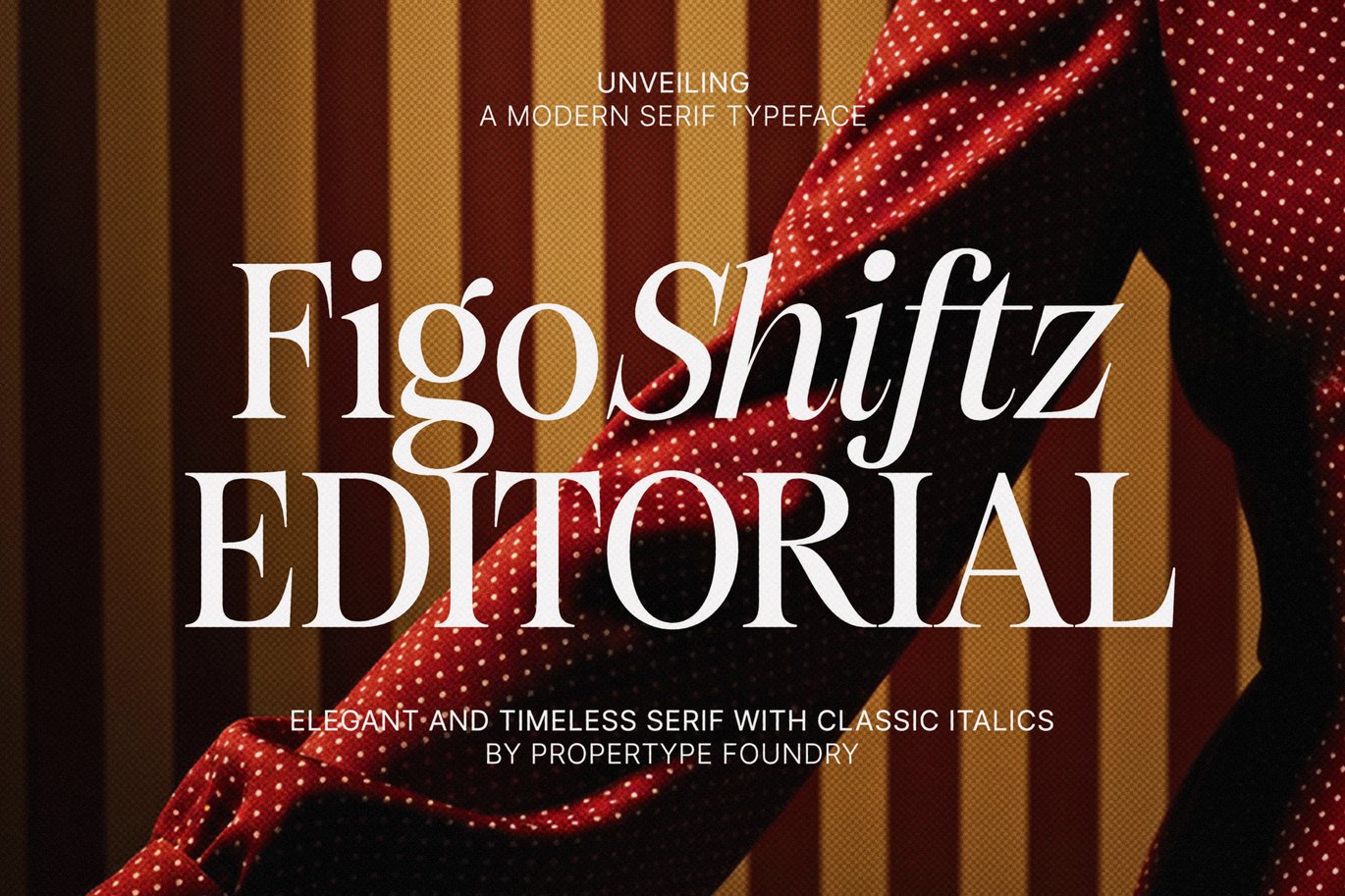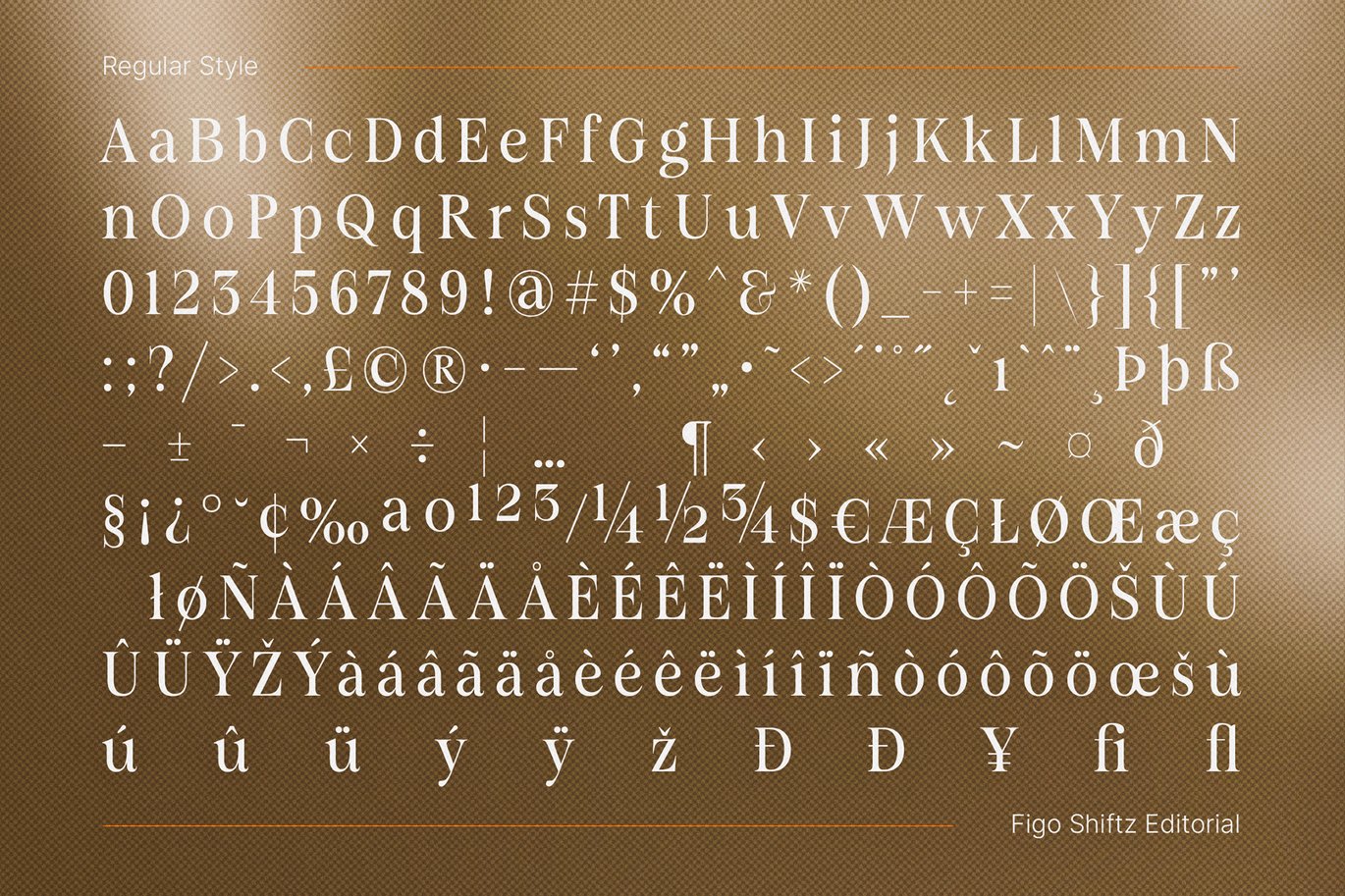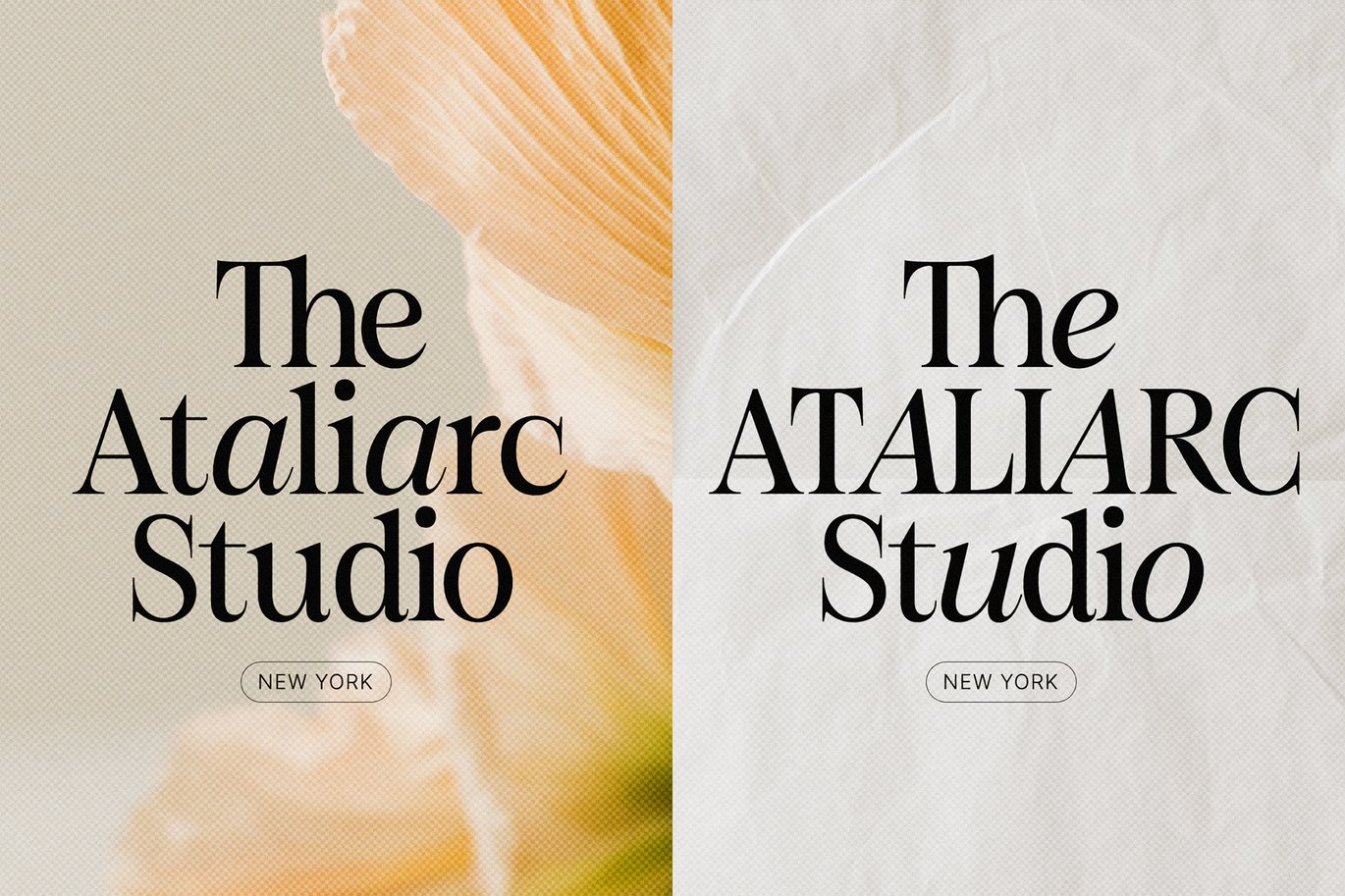
Figo Shiftz – Editorial Serif Font
Propertype built Figo Shiftz Editorial for magazine work. The roman is crisp, with sharp, bracketed serifs and moderate contrast. The italic is more calligraphic, and the specimen shows how well the two mix: “The Ataliarc Studio” switches between upright and italic within one name and still looks planned.
Best uses for Figo Shiftz
• Magazine covers and article headlines
• Fashion and beauty brand identities
• Studio and agency websites
• Book covers and title pages
• Restaurant menus with a classic tone
Figo Shiftz handles most editorial jobs alone, so add a sans for interface text and captions. Inter is a safe choice for websites. DM Sans is a little rounder and friendlier. For small labels like “New York” in the specimen, Manrope in Medium works well.
What is a free alternative to Figo Shiftz?
Newsreader and Source Serif 4 are open-licence editorial serifs with italics and several weights. Playfair Display is closer for big, high-contrast headlines.
Can I mix the upright and italic styles in one word?
Yes, and the specimen does exactly that. Keep the same weight for both and the switch looks intentional rather than accidental.